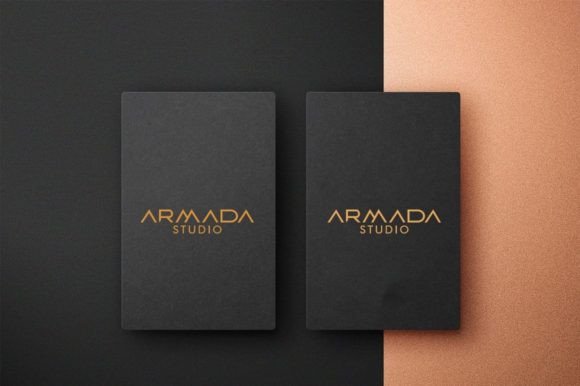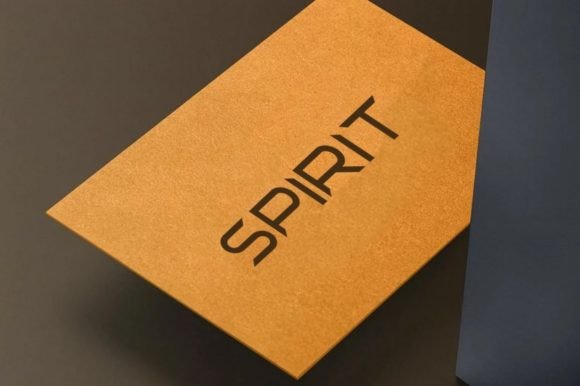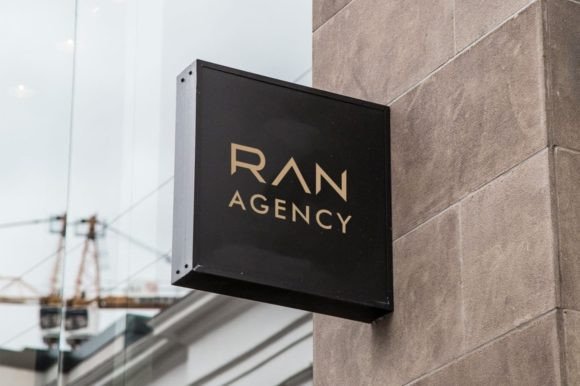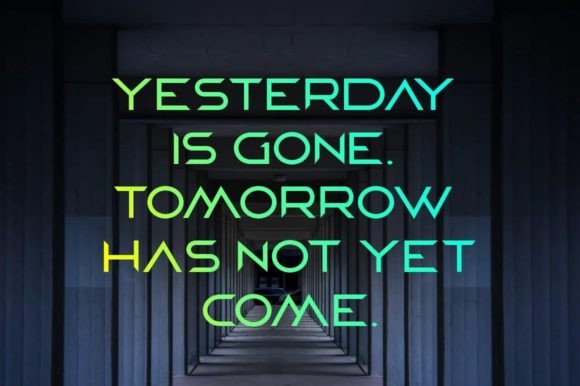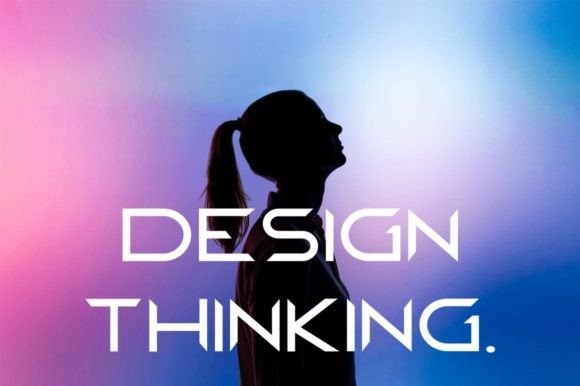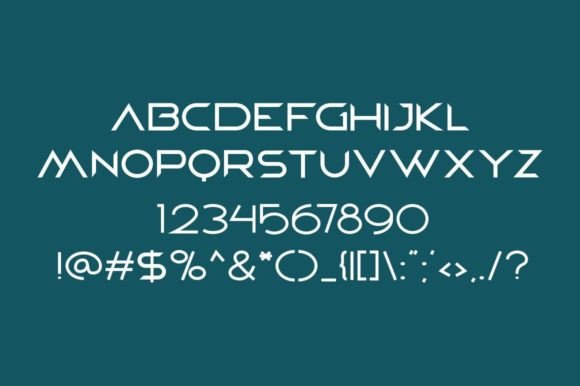
Introducing Deltha Font: Elevate Your Designs with a Futuristic Twist
In the realm of typography, fonts play a pivotal role in defining the aesthetic and tone of any design project. Whether you’re crafting a logo, creating digital content, or working on a print project, the right font can make all the difference. This is where Deltha Font comes into play—a sans serif font that brings a unique and futuristic flair to the table. In this article, we’ll dive deep into the features of Deltha Font, its applications, and why it’s becoming a go-to choice for designers and crafters alike.
The Essence of Deltha Font
Deltha Font is characterized by its sleek, sans serif design, which inherently exudes modernity and simplicity. However, what truly sets Deltha apart is its unique uppercase letters. These are not just any ordinary uppercase letters; they are designed with a futuristic approach that can instantly elevate your designs. The clean lines, coupled with a distinct futuristic edge, make Deltha a versatile font suitable for a wide array of design projects.
Key Features of Deltha Font
- Unique Uppercase Letters: The standout feature of Deltha Font is its unique uppercase letters. These are crafted to give your designs a futuristic look that is hard to achieve with standard fonts.
- Sans Serif Design: The sans serif nature of Deltha ensures that your designs look clean, modern, and highly legible across various platforms and sizes.
- Versatility: Deltha Font is not limited by its use. It can be employed for logotypes, digital content, print materials, and essentially any design project where a modern look is desired.
- Ease of Use: Designed with the user in mind, Deltha Font is easy to integrate into any design project, making it accessible for both professional designers and hobbyists.
Applications of Deltha Font
The versatility of Deltha Font makes it suitable for a myriad of applications. Here are some of the most notable uses:
- Logotypes and Branding: The unique and futuristic design of Deltha makes it an excellent choice for logotypes and branding projects. It can help a brand stand out and convey a sense of innovation and forward-thinking.
- Digital Content: For digital content creators, Deltha can add a professional and modern touch to websites, blogs, and social media posts.
- Print Materials: Deltha Font also shines in print. It can be used for brochures, posters, business cards, and any other print material where a modern aesthetic is desired.
Why Choose Deltha Font?
In a sea of fonts, Deltha stands out for several reasons:
- Uniqueness: Deltha offers a unique twist on sans serif fonts, particularly with its uppercase letters, making it a great choice for designers looking for something beyond the conventional.
- Legibility: Despite its futuristic design, Deltha maintains high legibility, ensuring that your message is conveyed clearly and effectively.
- Adaptability: Whether it’s for digital use or print, Deltha adapts seamlessly, making it a practical choice for a variety of projects.
Deltha Font is more than just a typeface; it’s a design statement. Its unique blend of modern sans serif design with a futuristic edge makes it an invaluable asset for designers and crafters looking to push the boundaries of their creativity. Whether you’re aiming to create a striking logotype, enhance your digital content, or simply explore new typography options, Deltha Font is a choice that can help you achieve your design goals with style and sophistication.
Incorporating Deltha Font into your projects is a straightforward process that can yield impressive results. With its ease of use, versatile applications, and standout design, Deltha is poised to become a favorite in the design community. So, if you’re looking to infuse your designs with a modern and futuristic vibe, look no further than Deltha Font.